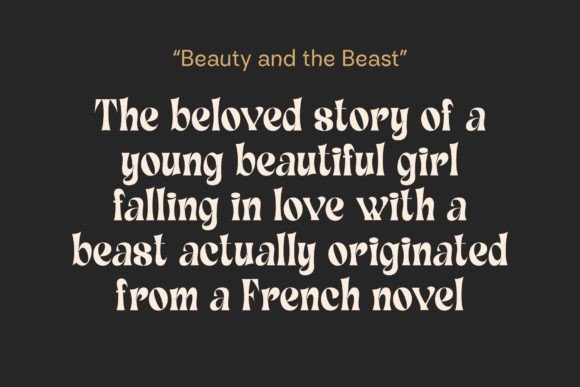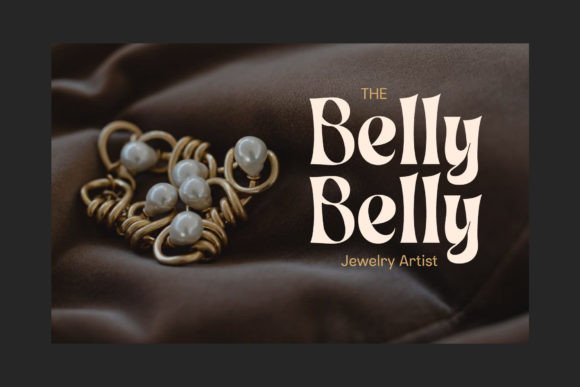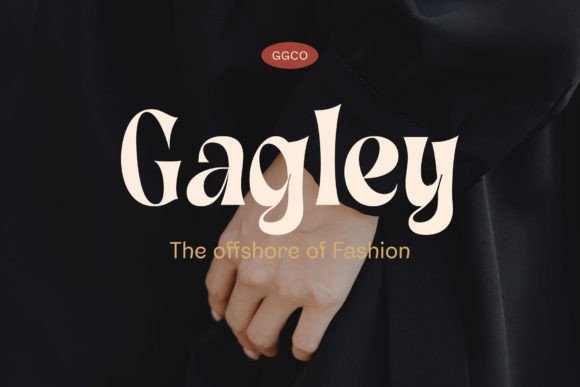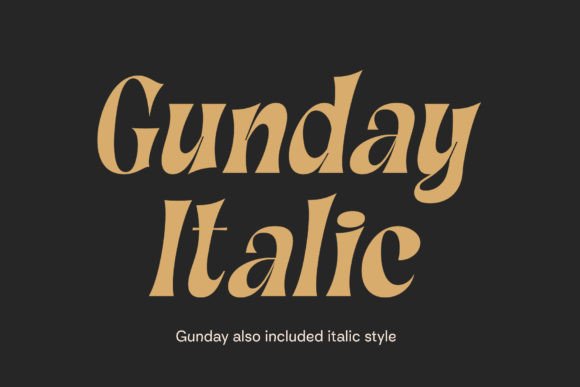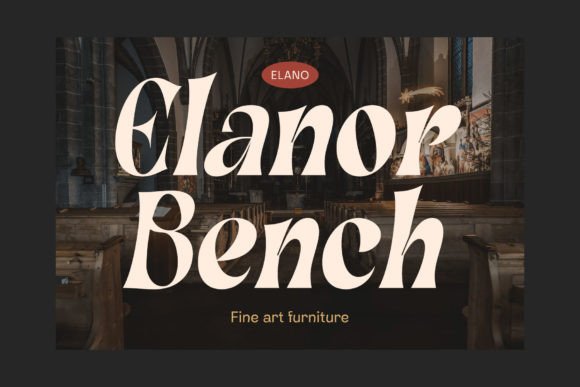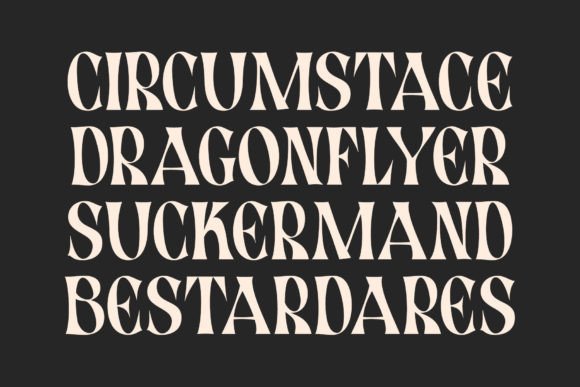
Gunday Font: Elevate Your Designs with a Touch of Elegance and Whimsy
In the vast universe of typography, where fonts are the essence of visual communication, there’s a constant quest for something new, something exciting, and something that can make a design stand out from the crowd. It is here that Gunday Font makes its entrance, bringing with it a breath of fresh air and a dash of magic. Gunday is an incredibly cool and unique serif font that has been making waves in the design community, and for good reason. It combines a modern and elegant style that promises to transport your designs into a magical world, where creativity knows no bounds.
The Allure of Gunday Font
So, what makes Gunday Font so special? The answer lies in its distinctive characteristics. Unlike traditional serif fonts that often carry a classic or vintage feel, Gunday strikes a perfect balance between modernity and elegance. Its serifs are subtle yet pronounced, adding a layer of sophistication to any project. Whether you’re working on a branding project, a website design, or crafting invitations and cards, Gunday Font brings a level of refinement that’s hard to achieve with more conventional typefaces.
One of the standout features of Gunday Font is its versatility. It’s a font that can adapt to various design needs and themes. For instance, in editorial design, it can add a touch of elegance to magazine layouts or book pages. In digital design, its clarity and readability make it an excellent choice for websites and mobile applications. Moreover, its unique flair can add personality to packaging designs, making products stand out on shelves.
Crafting with Gunday Font
For crafters and DIY enthusiasts, Gunday Font opens up a world of possibilities. Imagine creating handmade cards, scrapbooking pages, or even custom iron-on designs with a font that speaks of elegance and whimsy. The font’s compatibility with various crafting software and tools means you can easily incorporate it into your projects, adding a professional touch to your handmade creations.
Why Designers Love Gunday Font
Designers, both seasoned and novice, find Gunday Font to be a valuable asset in their toolkit. Here are a few reasons why:
- Uniqueness: In a sea of generic fonts, Gunday offers a fresh alternative that can make designs instantly recognizable.
- Legibility: Despite its unique serifs, Gunday maintains excellent legibility, making it suitable for both headings and body text.
- Customizability: The font comes with a range of weights and possibly even variable font options, allowing for extensive customization to fit any design requirement.
Getting Started with Gunday Font
- Experiment with Styles: Gunday Font comes in various styles. Spend some time experimenting with different weights and styles to find the one that best suits your project.
- Pairing: Don’t be afraid to experiment with font pairings. Gunday can be paired with sans-serif fonts for a modern contrast or with other serif fonts for a layered, textured look.
Gunday Font is more than just a typeface; it’s a design experience. Its unique blend of modern elegance and whimsical serifs has the power to transform your designs, making them not just visually appealing but also memorable. Whether you’re a designer looking to elevate your projects or a crafter aiming to add a professional touch to your creations, Gunday Font is an excellent choice. Dive into the magical world of typography with Gunday, and watch your designs come to life in ways you never thought possible.